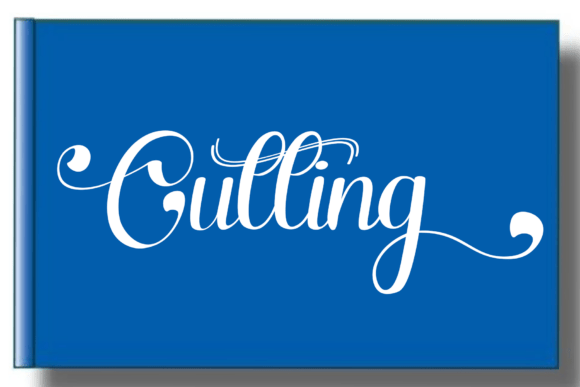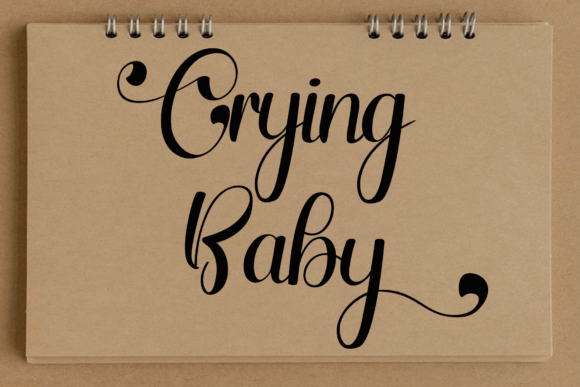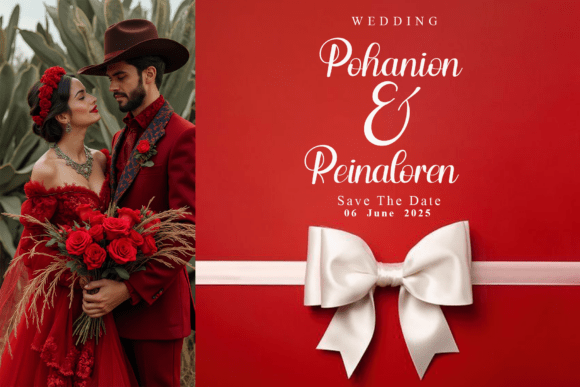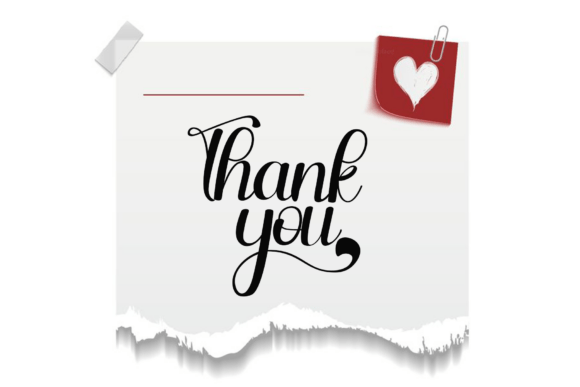
Unlock the Timeless Beauty of Calligraphy Font
Do you remember the moment when you first saw a beautifully crafted wedding invitation, and your heart skipped a beat? The elegant script, the delicate strokes, and the refined charm – it all came together to create an unforgettable impression. That’s the magic of the Calligraphy Font, a stylish and incredibly elegant script font that adds a touch of sophistication to any design.
Whether you’re a seasoned designer or a creative enthusiast, the Calligraphy Font is a valuable asset in your toolkit. It’s perfect for wedding invitations, thank you cards, quotes, greeting cards, logos, business cards, and every other design that needs a handwritten touch. With its versatility and timeless charm, the Calligraphy Font is sure to elevate your designs and leave a lasting impression.
Calligraphy Font Key Features
- Unique Characteristics: Distinctive calligraphy style with elegant flourishes, intricate details, and ornate lettering, adding a touch of sophistication and artistry to any text.
Review: Calligraphy Font
First off, I want to say that I’m a big fan of Calligraphy Font – it’s got a certain je ne sais quoi that’s hard to resist ✨. The elegant, flowing lines are perfect for adding a touch of sophistication to your designs. It’s also incredibly versatile, working well for both print and digital applications.
One of the things that really stands out about Calligraphy Font is its ligature support. It’s a game-changer for designers who want to create beautiful, flowing text. Plus, the font is scalable, so it looks great at any size ✨.
While Calligraphy Font is a solid choice, there are a few limitations to be aware of ⚠️. For one, it’s not as versatile as some other fonts on the market – it’s primarily designed for display use, so it may not be the best choice for body text. Additionally, the font can be a bit difficult to read at very small sizes.
- Not ideal for body text
- Difficult to read at very small sizes
Overall, I’d say that Calligraphy Font is a great choice for designers who want to add a touch of elegance to their work. While it’s not perfect, its strengths far outweigh its weaknesses. With a little creativity and experimentation, I have no doubt that you’ll be able to get the most out of this beautiful font ✨.